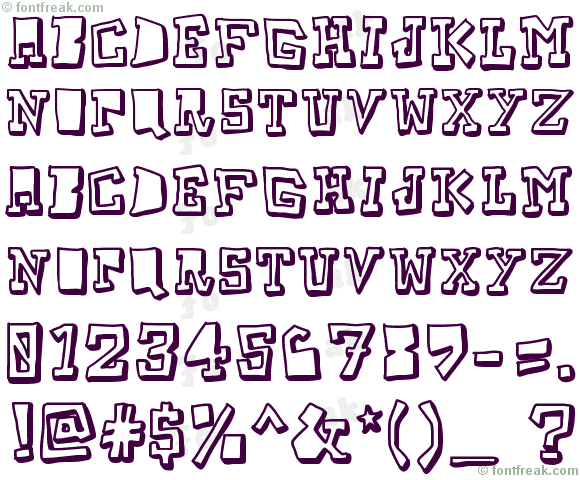
TakeTwo
About TakeTwo
TakeTwo by Luedecke Design Font Co. is a charming display font that captures attention with its playful and whimsical character. This unique typeface falls into the decorative category, distinguished by its creative approach to letterforms. The strokes exhibit a bold weight, giving the font a strong presence while maintaining a light-hearted feel. The contrast between the thick and thin strokes adds an element of visual interest, and the spacing is thoughtfully designed to enhance readability without sacrificing style. Decorative elements, such as the quirky shapes of the letters, contribute to its distinct personality, making it a standout choice for various projects.
This font is ideal for use in wedding invitations, where its playful nature can add a touch of fun to formal events. Additionally, it shines in movie posters, capturing the essence of creativity and excitement. Restaurant menus can also benefit from the unique charm of TakeTwo, enticing diners with a visually appealing presentation. Small business owners looking to create memorable branding materials will find TakeTwo to be an excellent choice, as it conveys a sense of friendliness and approachability. Content creators, particularly in the realms of social media and marketing, will appreciate the font's ability to draw attention and engage audiences.
What sets the TakeTwo font apart is its ability to combine whimsy with practicality, making it versatile for a range of applications. Its free availability as a freeware font allows designers and entrepreneurs alike to incorporate this appealing typeface into their projects without any cost. For anyone seeking a font that embodies creativity and charm, the TakeTwo font free download offers an opportunity to enhance visual storytelling in a delightful way.